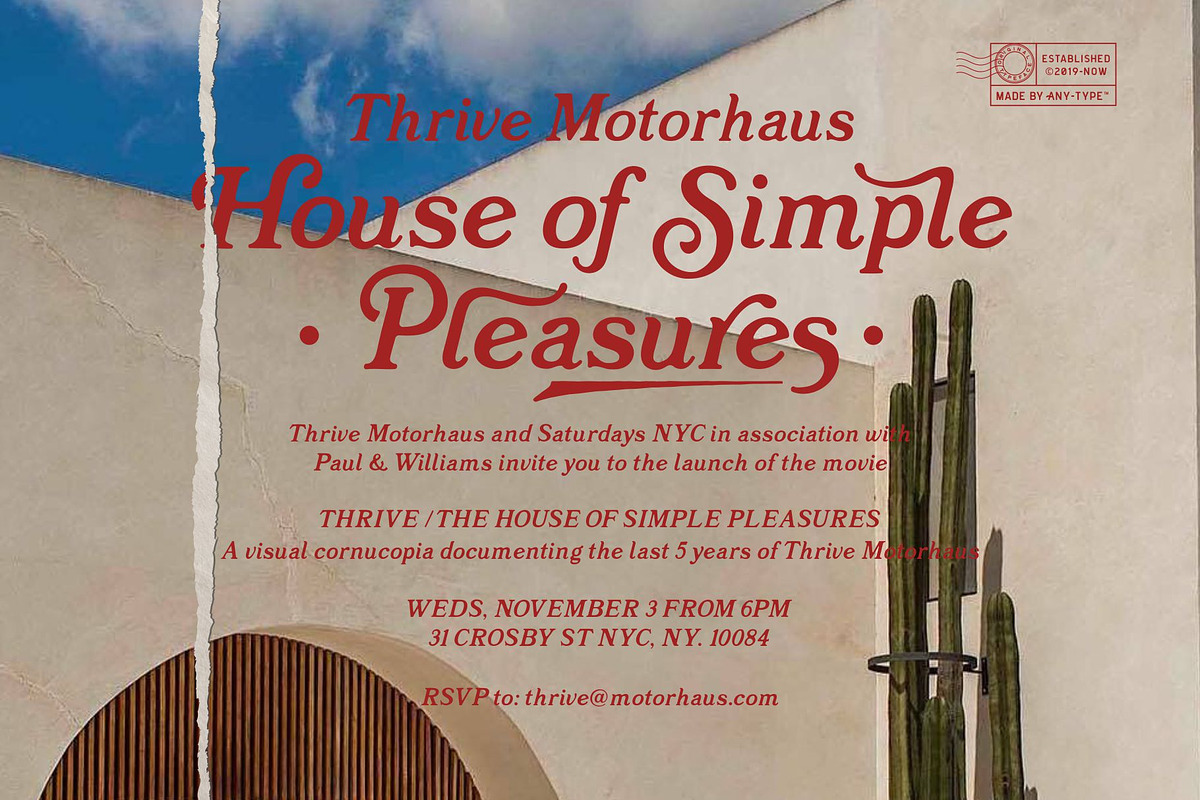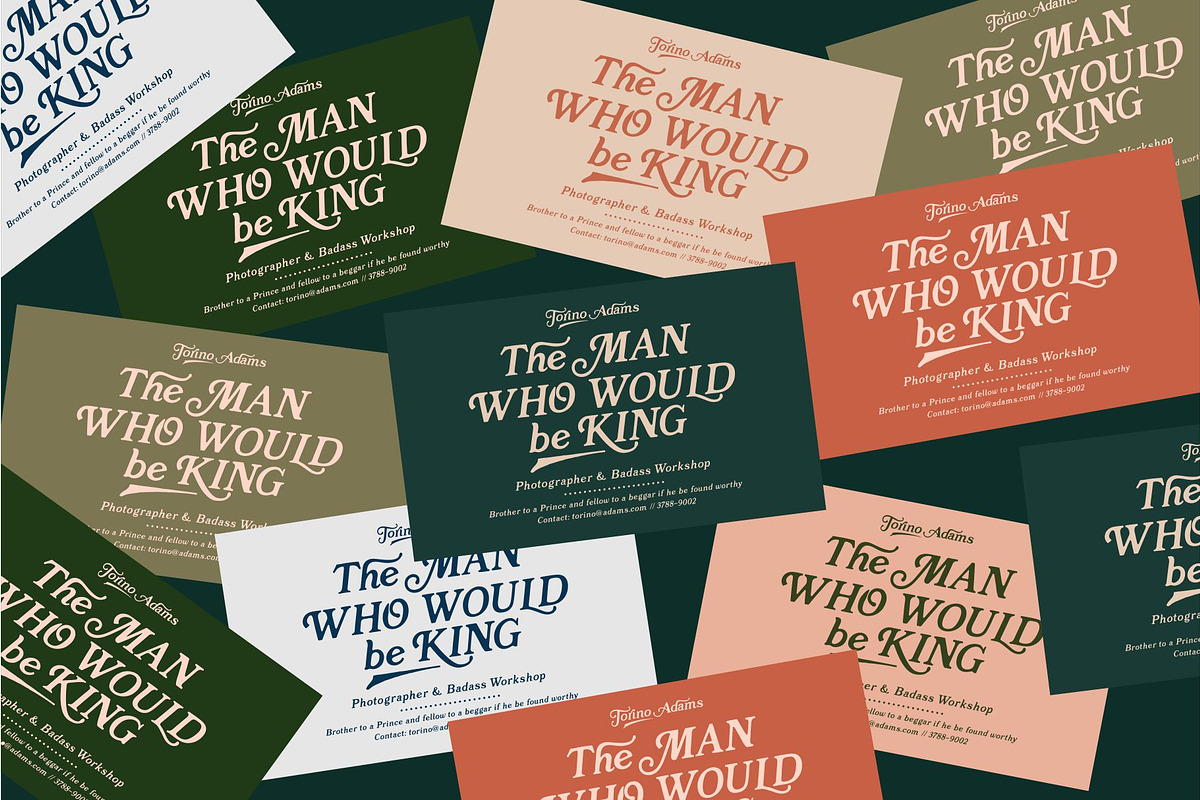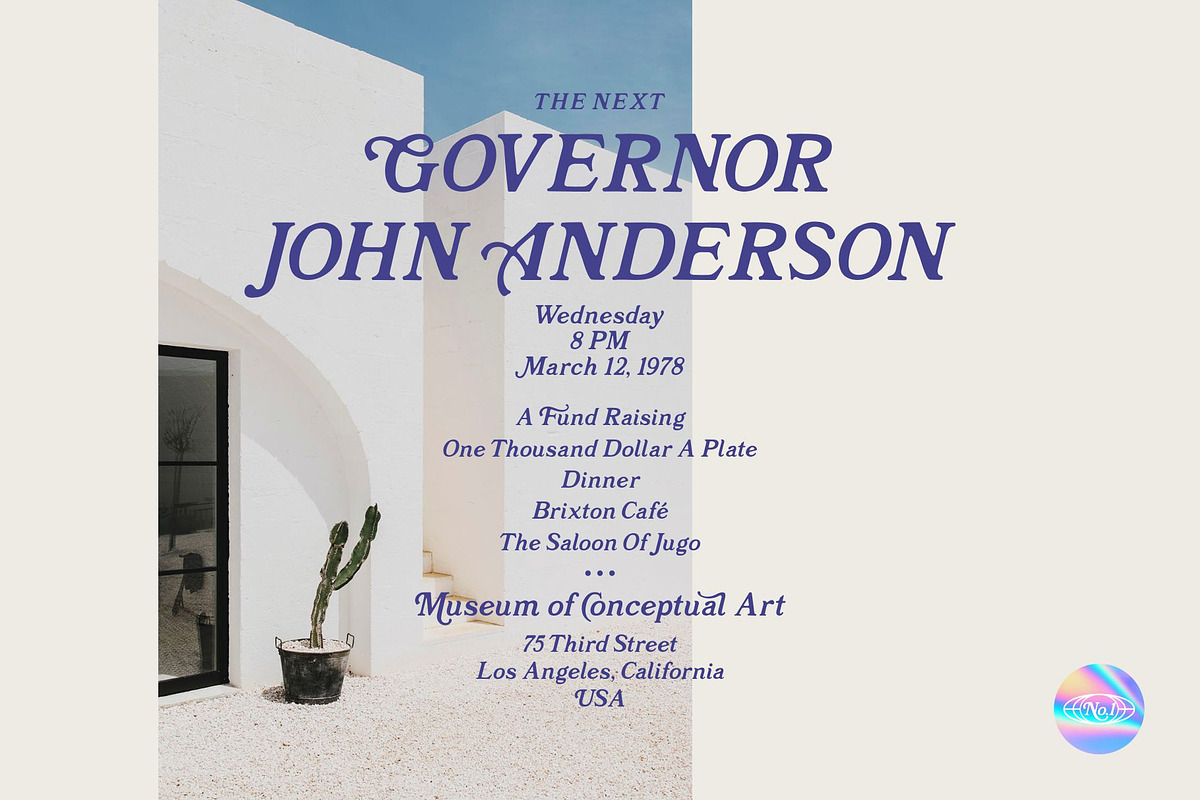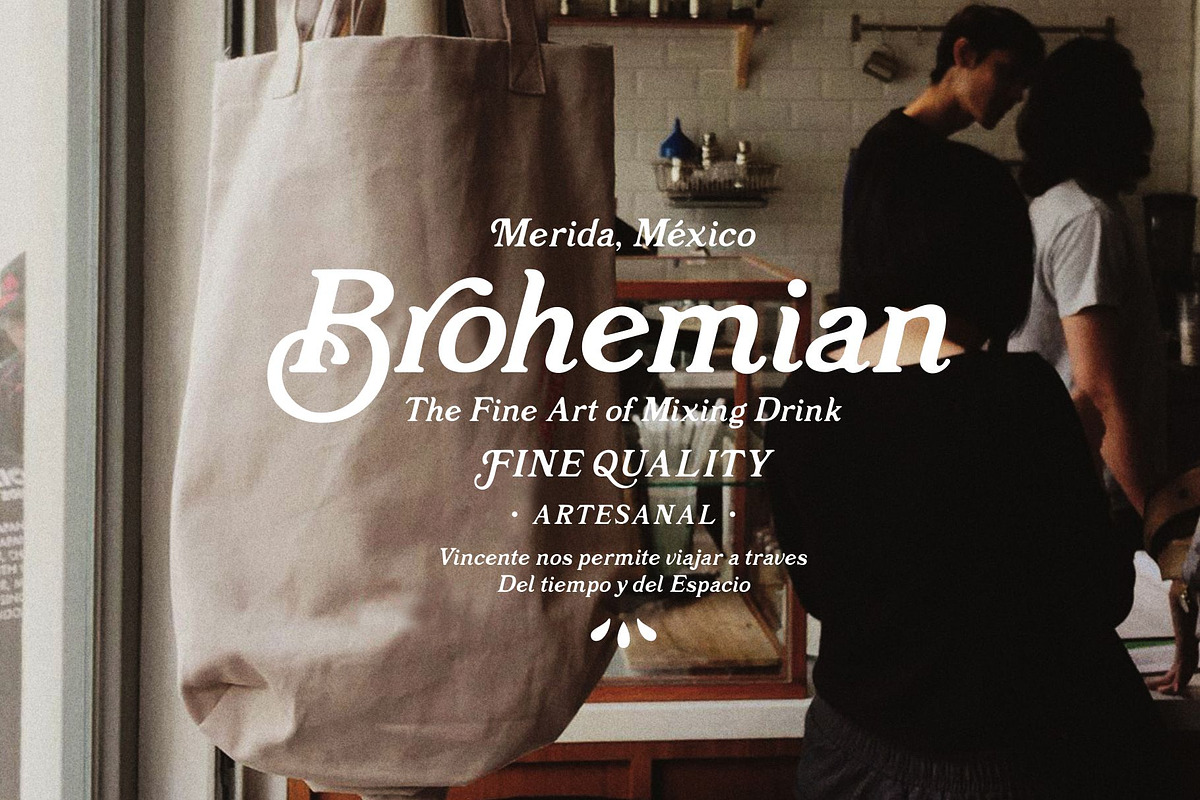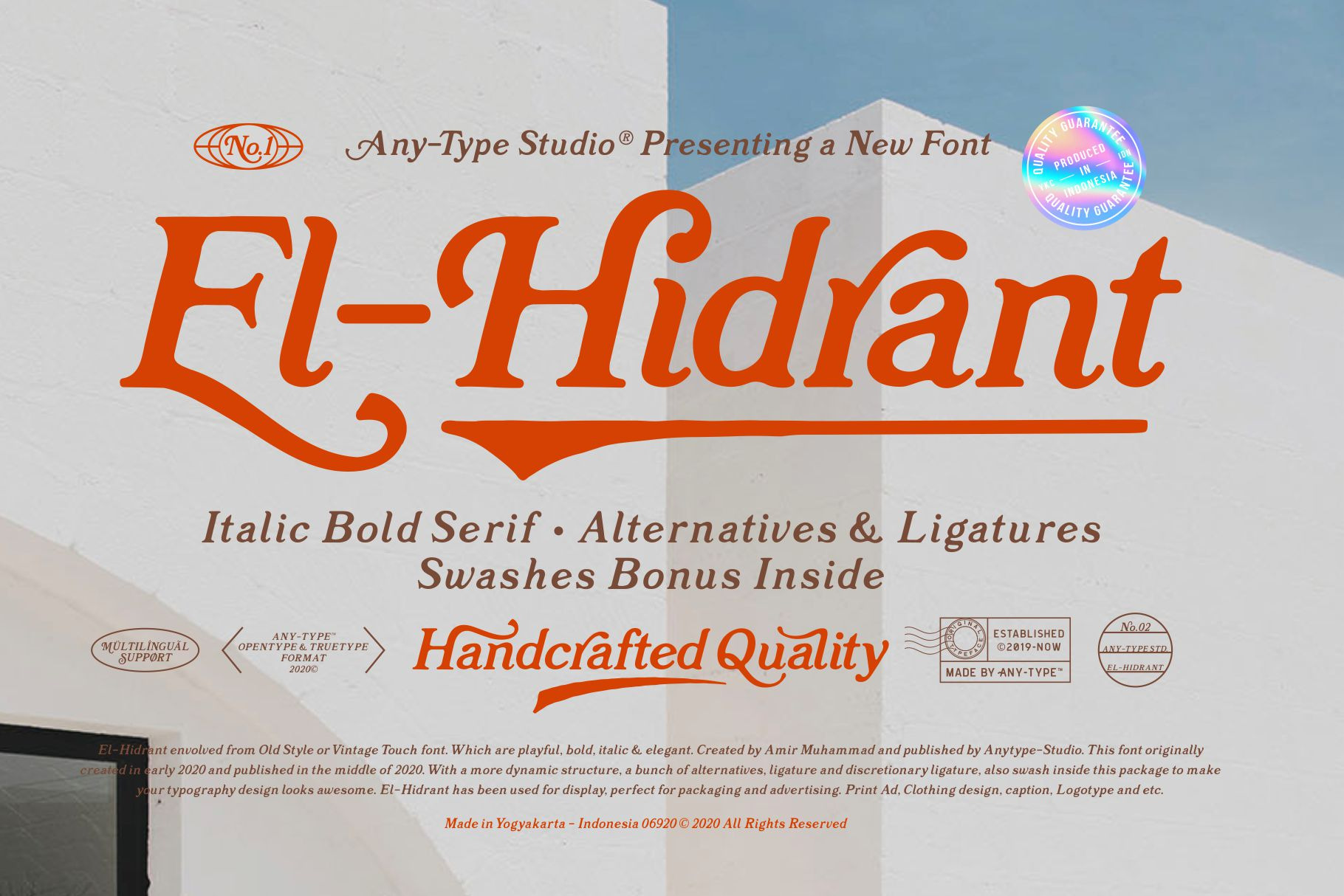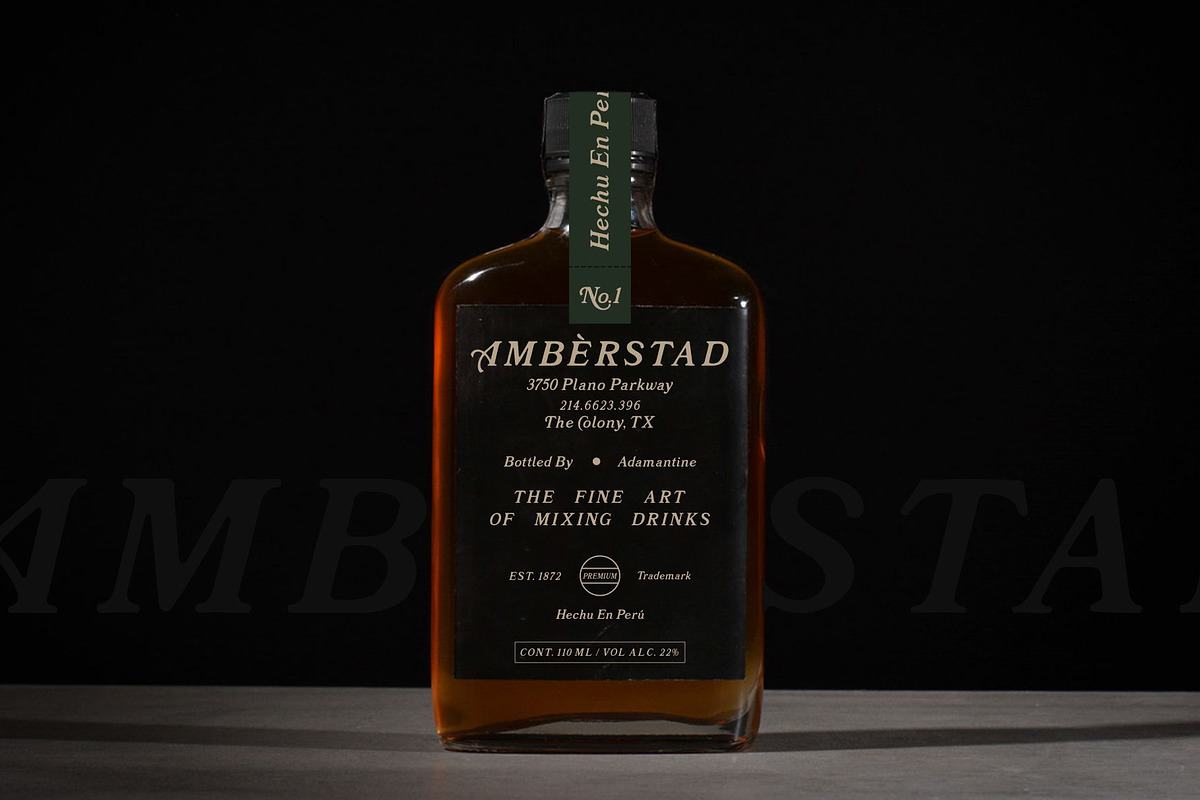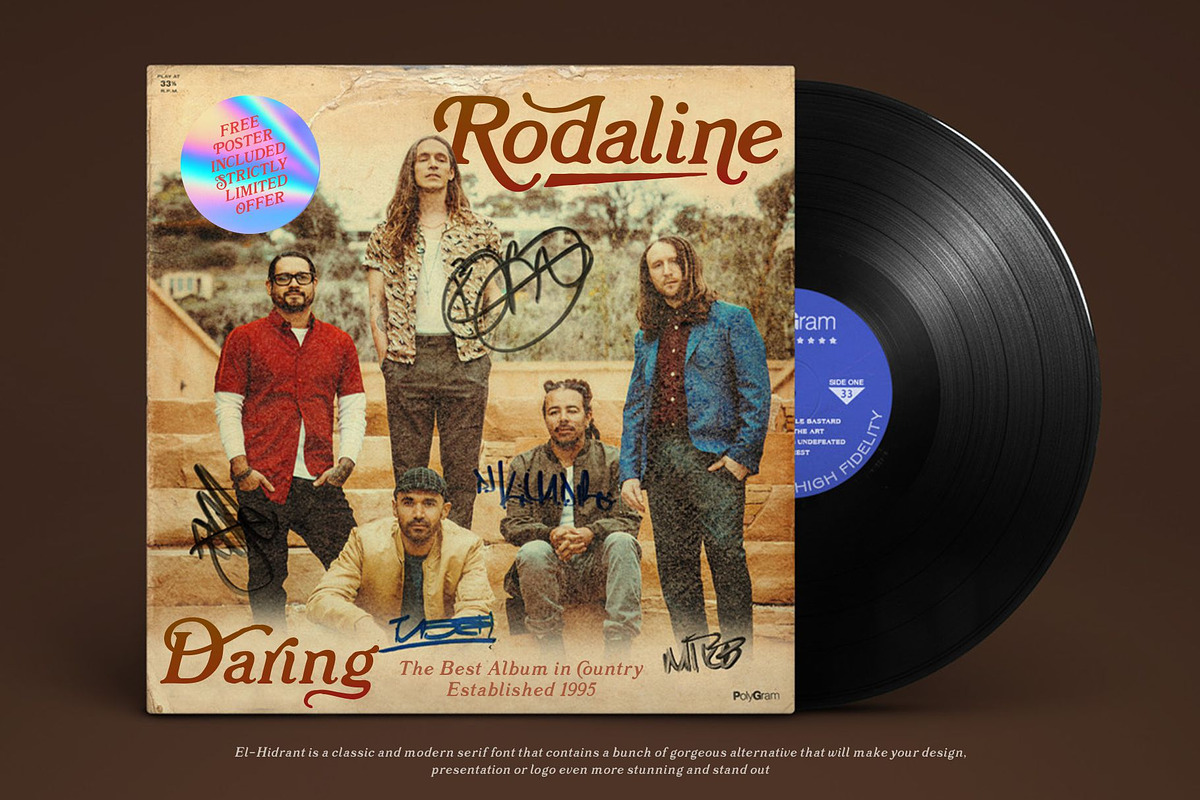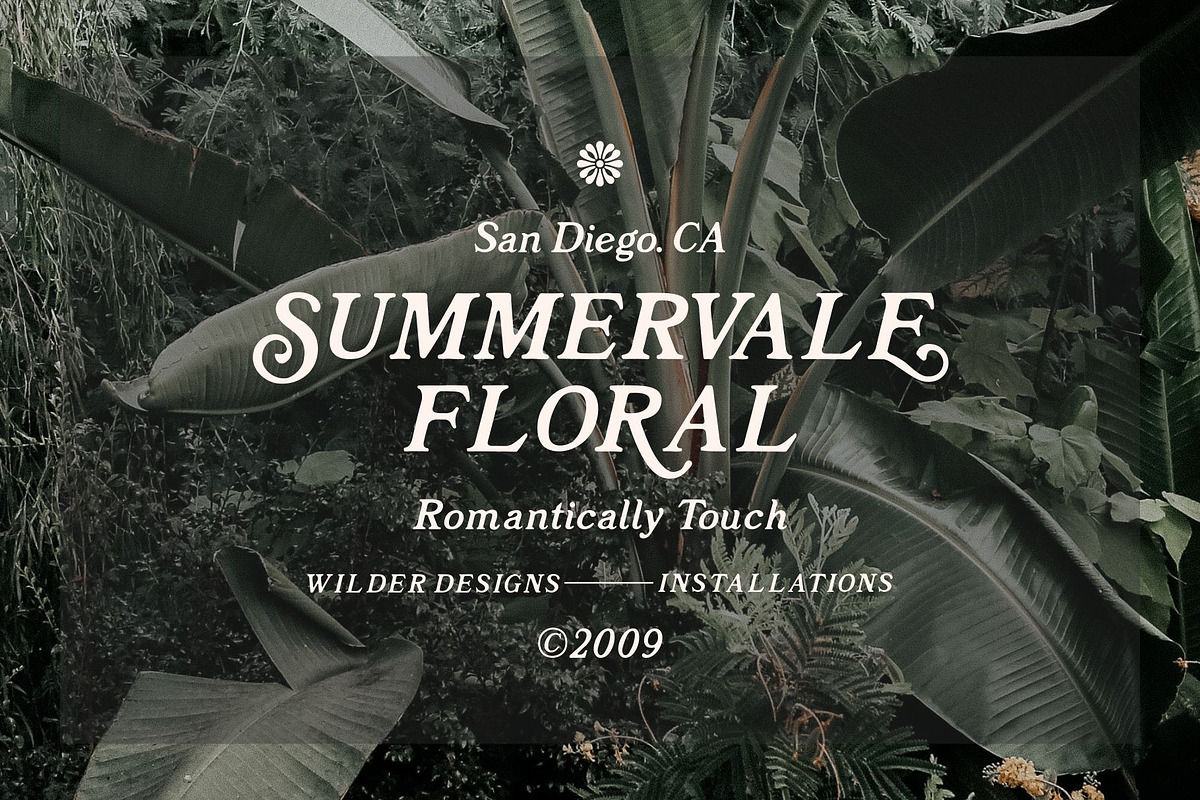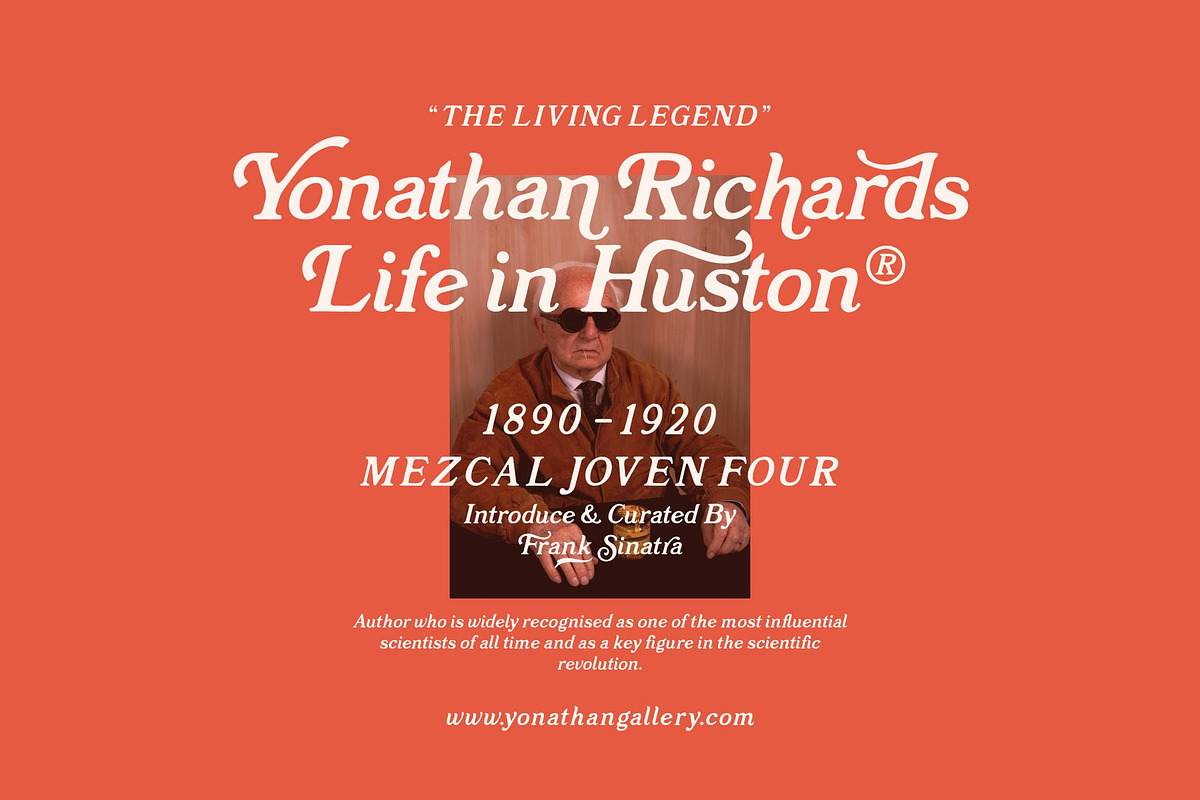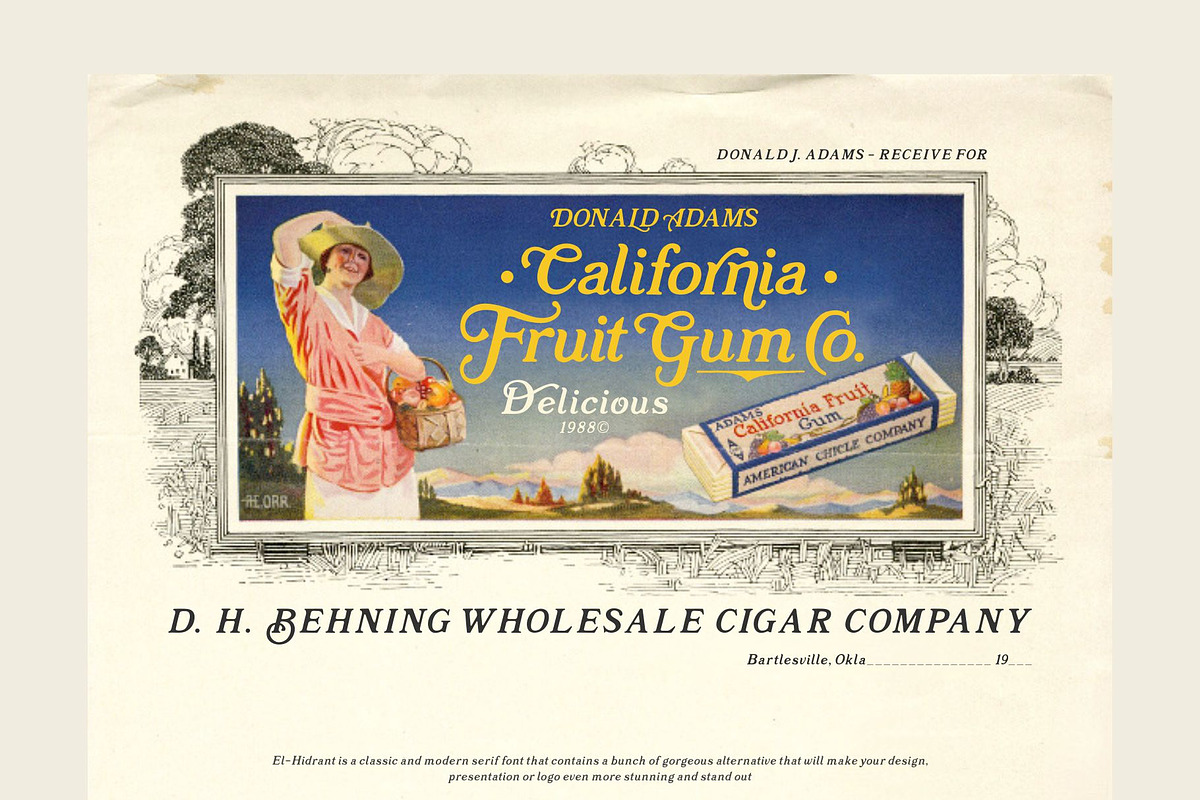
El-Hidrant Serif Font With Swashes
EL-HIDRANT SERIF FONT
El-Hidrant envolved from Old Style or Vintage Touch font. Which are playful, bold, italic & elegant. Crreated by Amir Muhammad and published by Anytype-Studio. This font originally created in early 2020 and published in the middle of 2020. This El-Hidrant font inspired by eighteenth-century typeface like Caslon, Bookman, Grotesque etc. With a more dynamic structure, a bunch of alternatives, ligature and discretionary ligature, also swashes inside this package to make your typography design looks awesome. El-Hidrant has been used for display, perfect for packaging and advertising. Print Ad, Clothing design, caption, Logotype and etc.
- Uppercase and Lowercase character
- Numeral, punctuation and symbol
- Multilngual Support
- Ligatures and Discretionary ligature
- Stylistic alternates